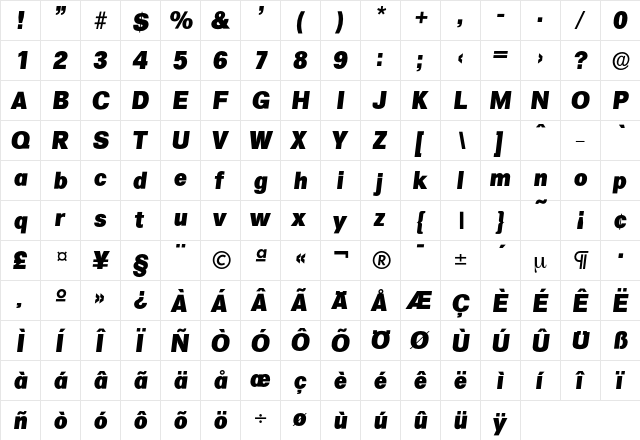
Formula-ExtraBoldIta Regular
Design Context for Formula-ExtraBoldIta Typeface
Formula-ExtraBoldIta offers clean, dependable letterforms without strong stylistic allegiance, making it a practical choice for designers who need flexibility. The heavy weight commands attention and anchors typographic hierarchies.